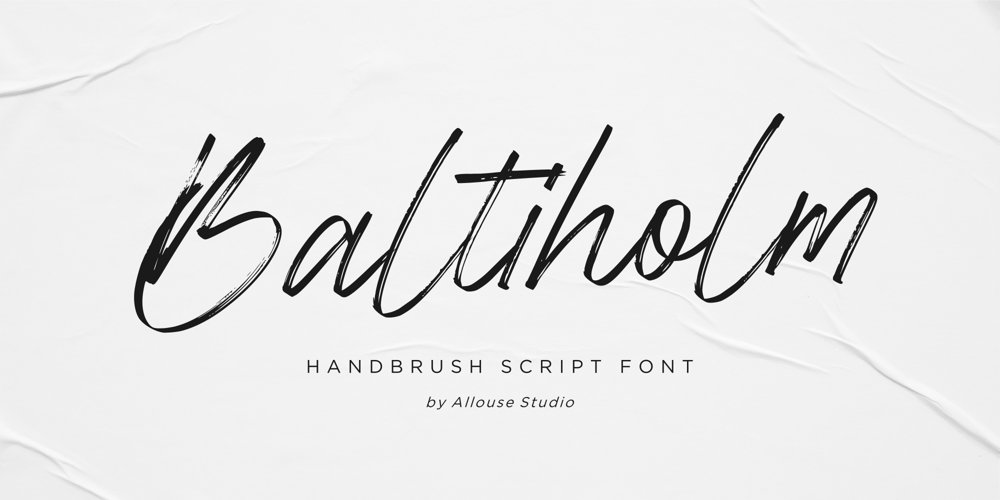
Baltiholm Font Family was designed by Fachrizal Yusuf and published by Allouse Studio. Baltiholm contains 1 styles and family package options. Proudly Presenting, Baltiholm A Handbrush Script Font.Baltiholm is perfect for any titles, logo, product packaging, branding project, megazine, social media, wedding, or just used to express words above the background.Baltiholm also come with Multi-Lingual Support.Enjoy the font, feel free to comment or feedback, send me PM or email. Thank You!